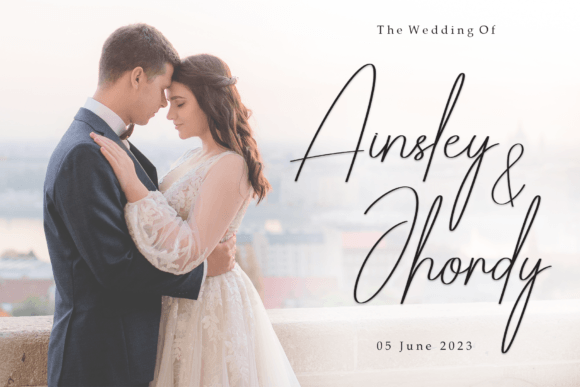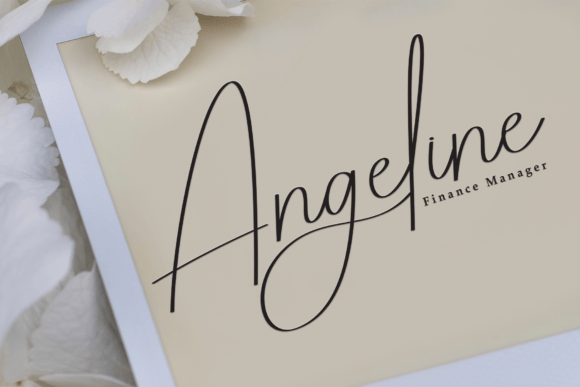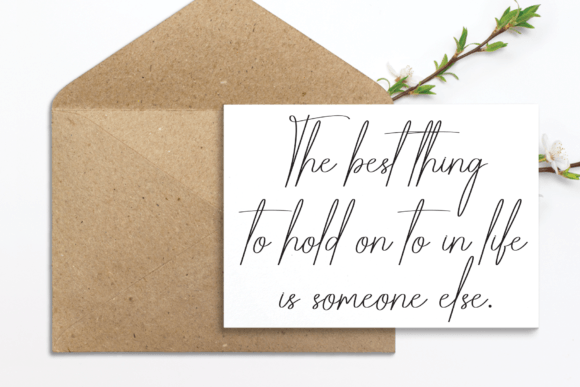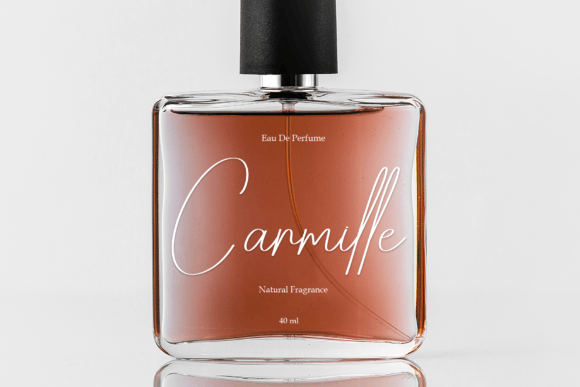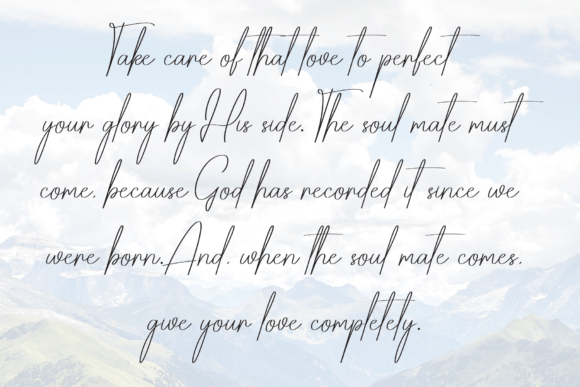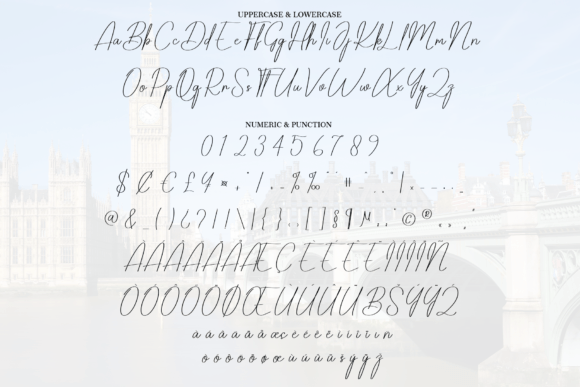
The Sweet Charm of Cambridge Font: A Designer’s Delight
I’ll never forget the time I was working on a wedding invitation project, and my client asked for a font that was ” elegant, yet playful; romantic, yet not too over-the-top.” I scoured the internet, tried out dozens of fonts, but nothing seemed quite right. That was until I stumbled upon the Cambridge Font. ✨
This sweet and cursive handwritten font has been a game-changer for me. Its gentle curves and joyful vibe instantly captured the essence of the project. And I’m not the only one who loves it! In this article, I’ll share my honest review, a practical guide on how to use Cambridge Font, and some helpful tips and tricks.
- ✅ So elegant and refined, perfect for high-end branding and luxury projects
- ✅ A wide range of OpenType features, including glyphs and stylistic alternates
- ✅ Works beautifully in various design contexts, from digital to print
- ⚠️ Limited availability of certain characters, such as ligatures and ornaments
- ⚠️ May not be the best fit for very bold or attention-grabbing designs
The Story Behind Cambridge Font
Cambridge Font was designed by a talented type designer who wanted to create a font that was both elegant and playful. Inspired by the beautiful architecture and historic colleges of Cambridge University, the designer aimed to capture the essence of this iconic city in a font. The result is a font that’s perfect for designs that require a touch of sophistication and whimsy.
Q: What is the best use for Cambridge Font?
A: Cambridge Font is perfect for designs that require a touch of elegance and playfulness, such as branding, logos, wedding invitations, and greeting cards.
Q: Is Cambridge Font available in different languages?
A: Cambridge Font may not be available in all languages, but it does support a range of languages, including English, French, German, and Spanish.